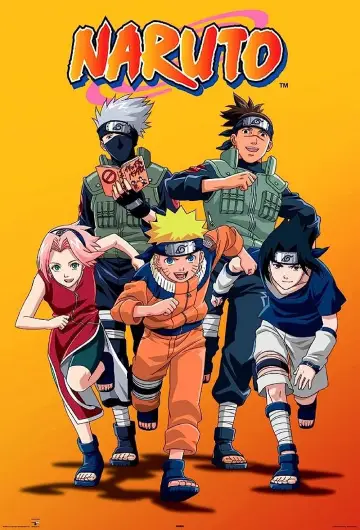
Naruto Font
About Naruto Font
Do you want the Naruto Font? Then you’ve come to the right place! The logo font used in the manga and anime logo looks very similar. But it is a custom design by the author and his team. But a fan named sk89q on the internet recreated the font and named it Ninja Naruto.
Naruto poster
Ninja Naruto has a brushed and dynamic style, reflecting the show’s action and energy. This font only has uppercase and numbers. And it is entirely free to download and use. So you can download it now and start using it for your Naruto projects.
Naruto logo vs Ninja Naruto Font Similarity Example
Ninja Naruto Font is inspired by the manga and anime series Naruto logo, which is about a young ninja’s journey. The font was created by a fan named sk89q and has a bold and energetic style. It is free to use for your Naruto projects.